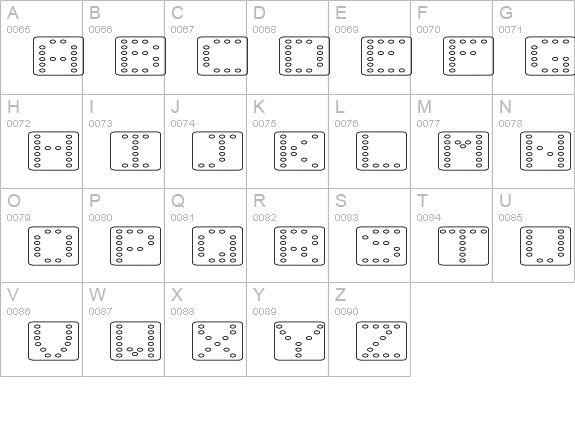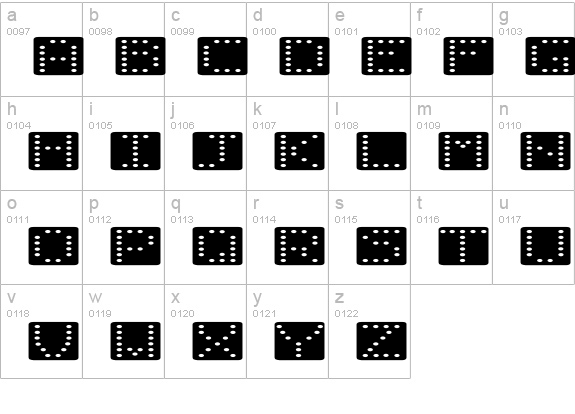
Domino Flad Font is a modern and stylish typeface that exudes elegance and sophistication. Its clean lines and sleek design make it perfect for a variety of design projects, from branding to packaging to web design. The unique flad style of the font adds a touch of sophistication and class to any project. The best part about Domino Flad Font is that it is completely free to download! You can get your hands on this stunning font at FontsMarket.com without having to spend a dime. Whether you are a seasoned designer looking for a new font to add to your collection or a beginner looking to experiment with typography, Domino Flad Font is the perfect choice for you. Download it today and elevate your designs to new heights!